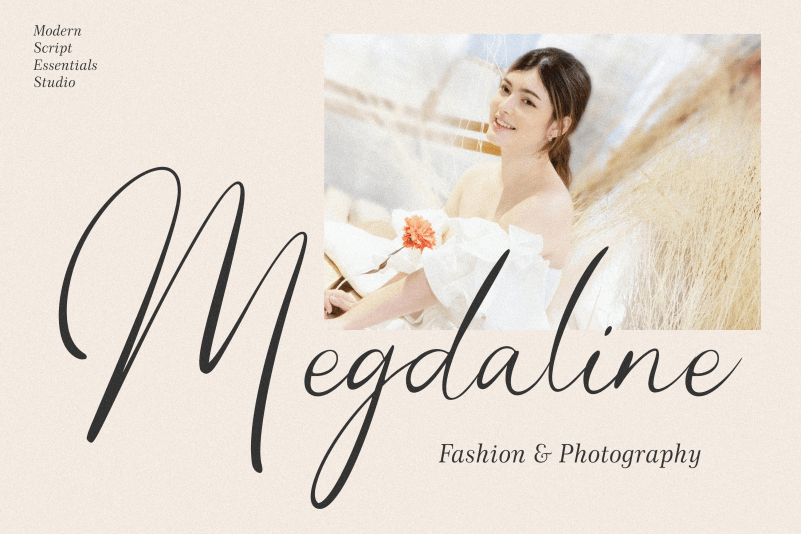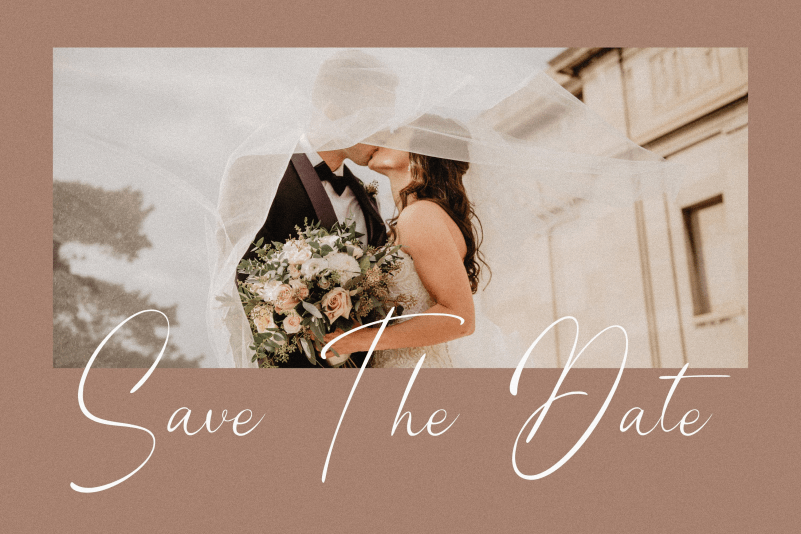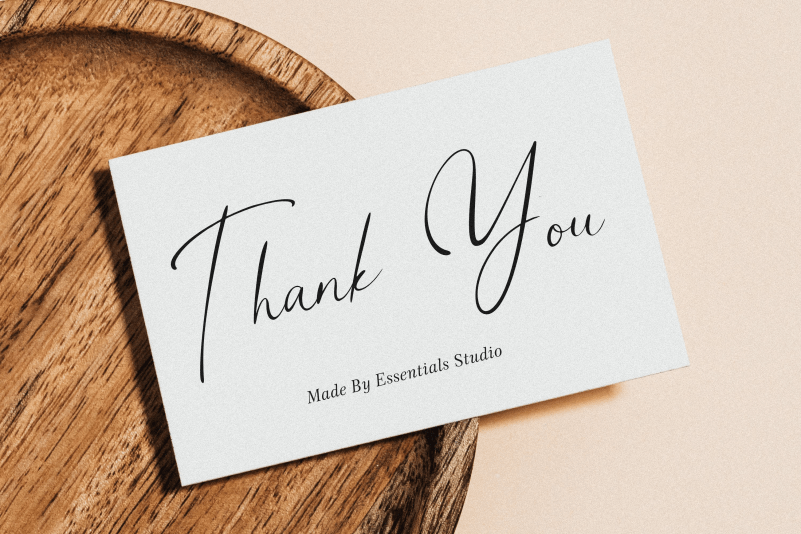
Willonita Script Font is a Modern Script Font. Willonita is perfect for product packaging, branding project, megazine, social media, wedding, or just used to express words above the background. This font includes OTF, TTF WOFF & Also Multilingual Support Enjoy the font, feel free to comment or feedback, send me PM or email